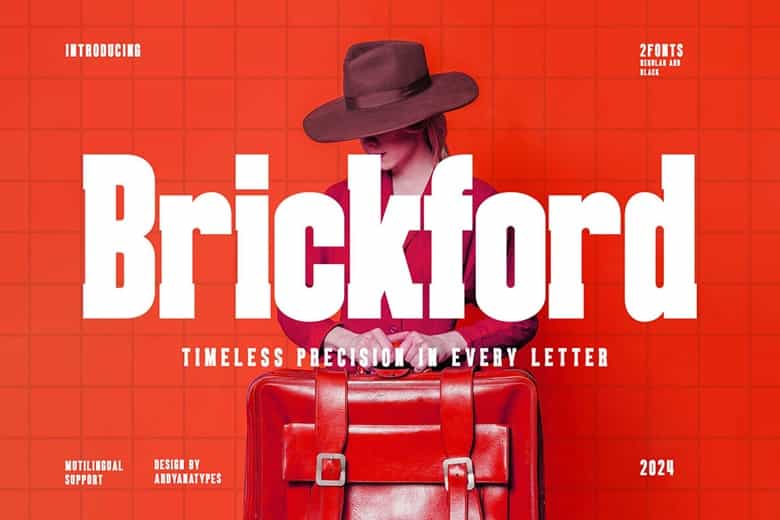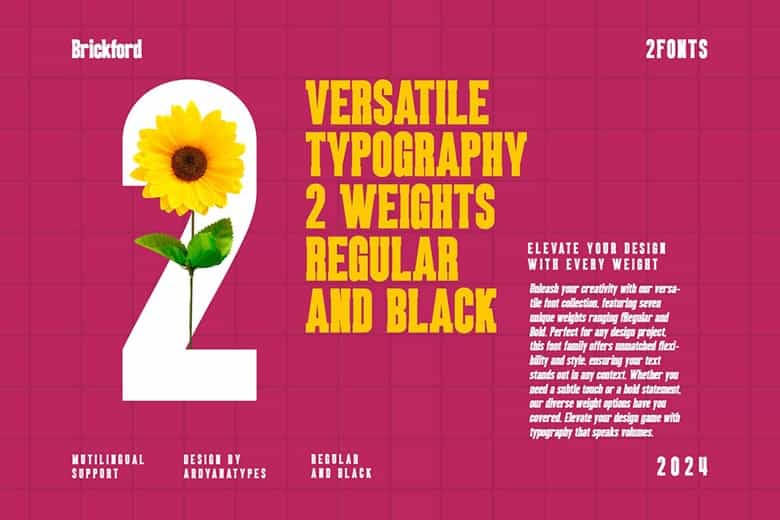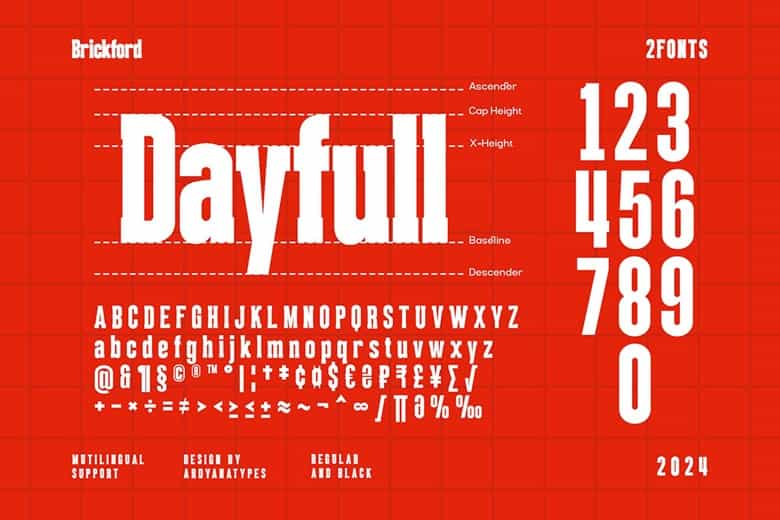
It was designed to be a contemporary slab serif font that presents strong, assured and professional outlook. Due to its strong and accurate construction, Brickford is perfect for designers in search of versatile typography solutions. The font comes in nine different styles all of which are thin to black and thus are versatile to use in numerous design concepts for instance; company logo designs, attractive advertising banners and posters, and appealing newspaper headlines.